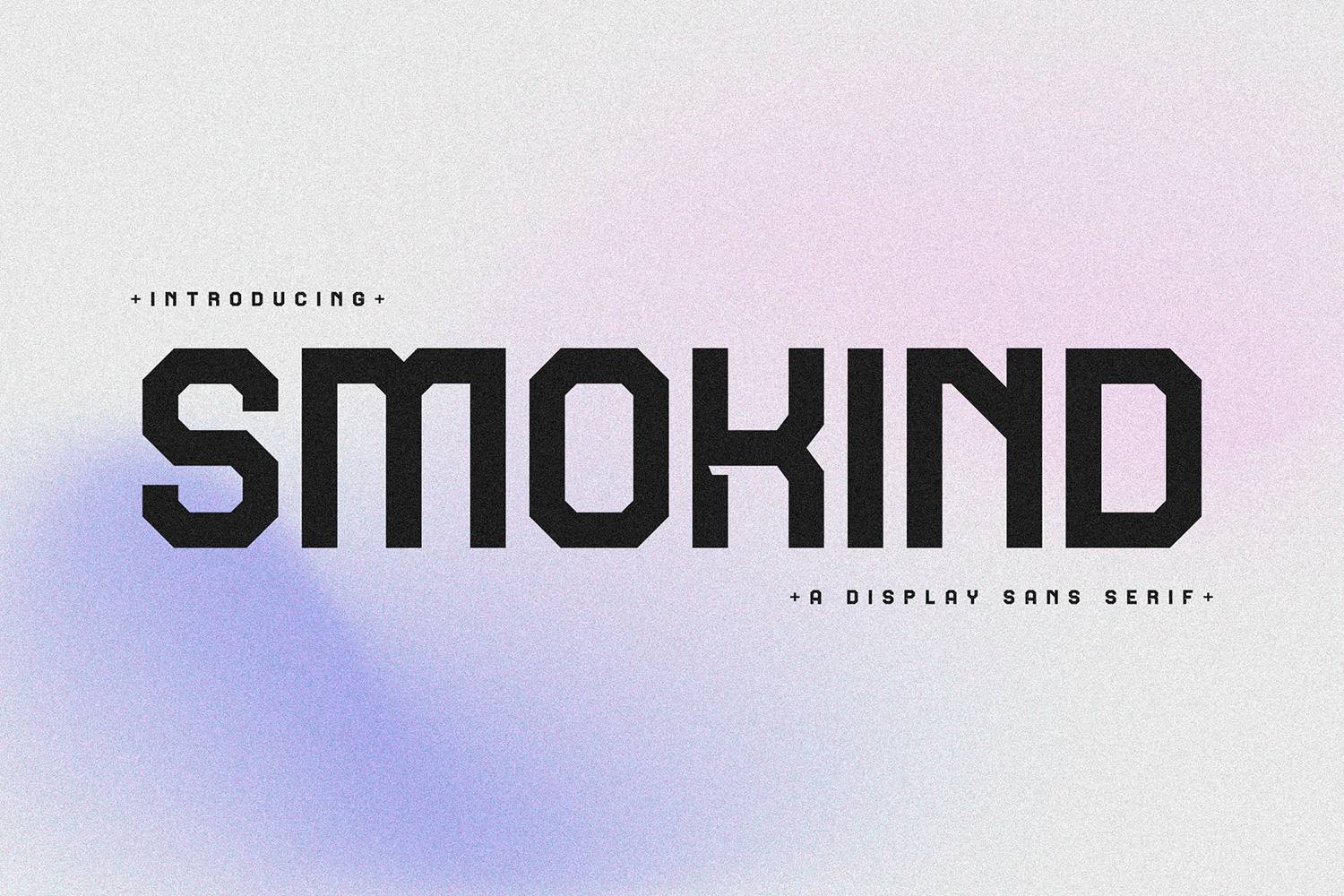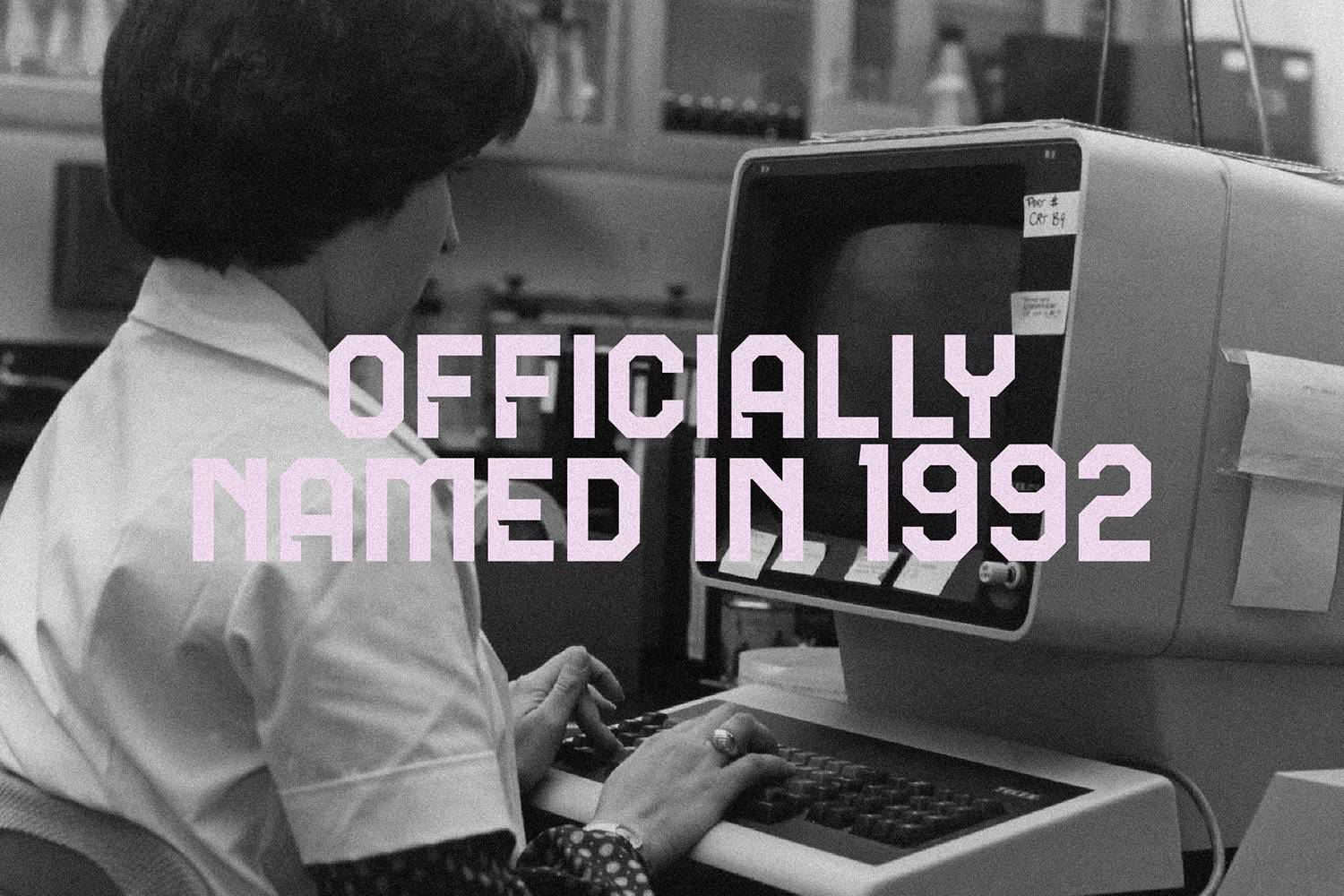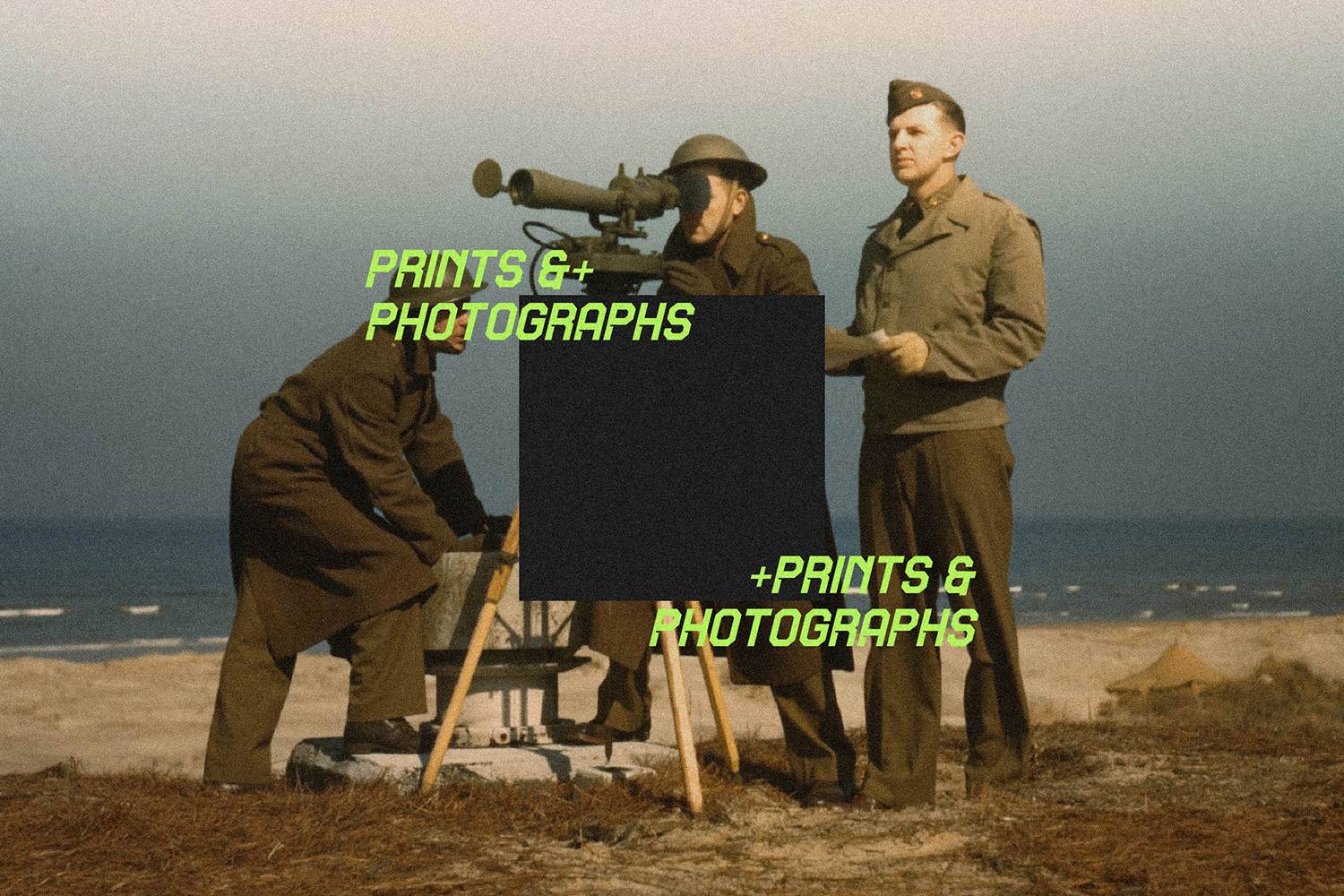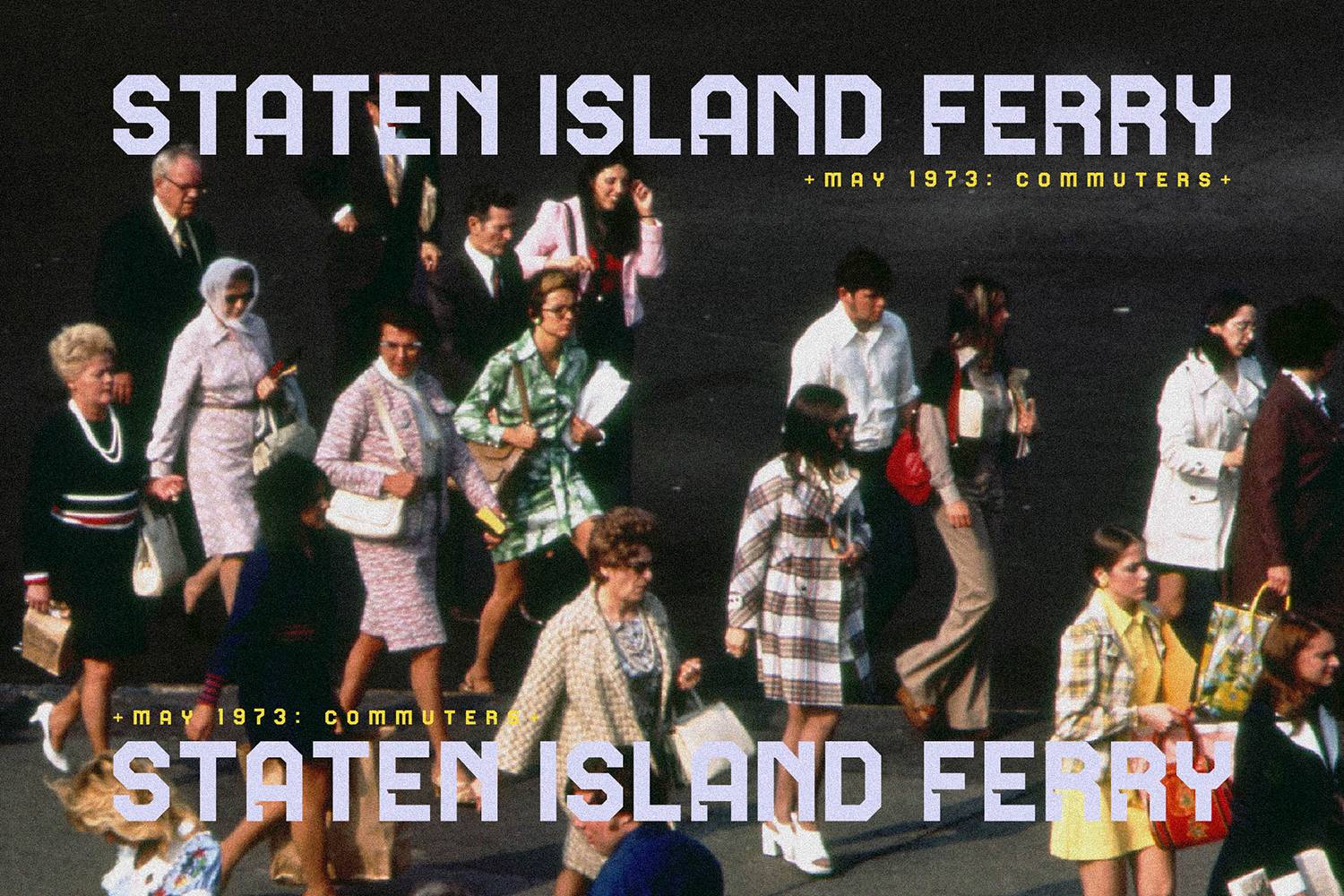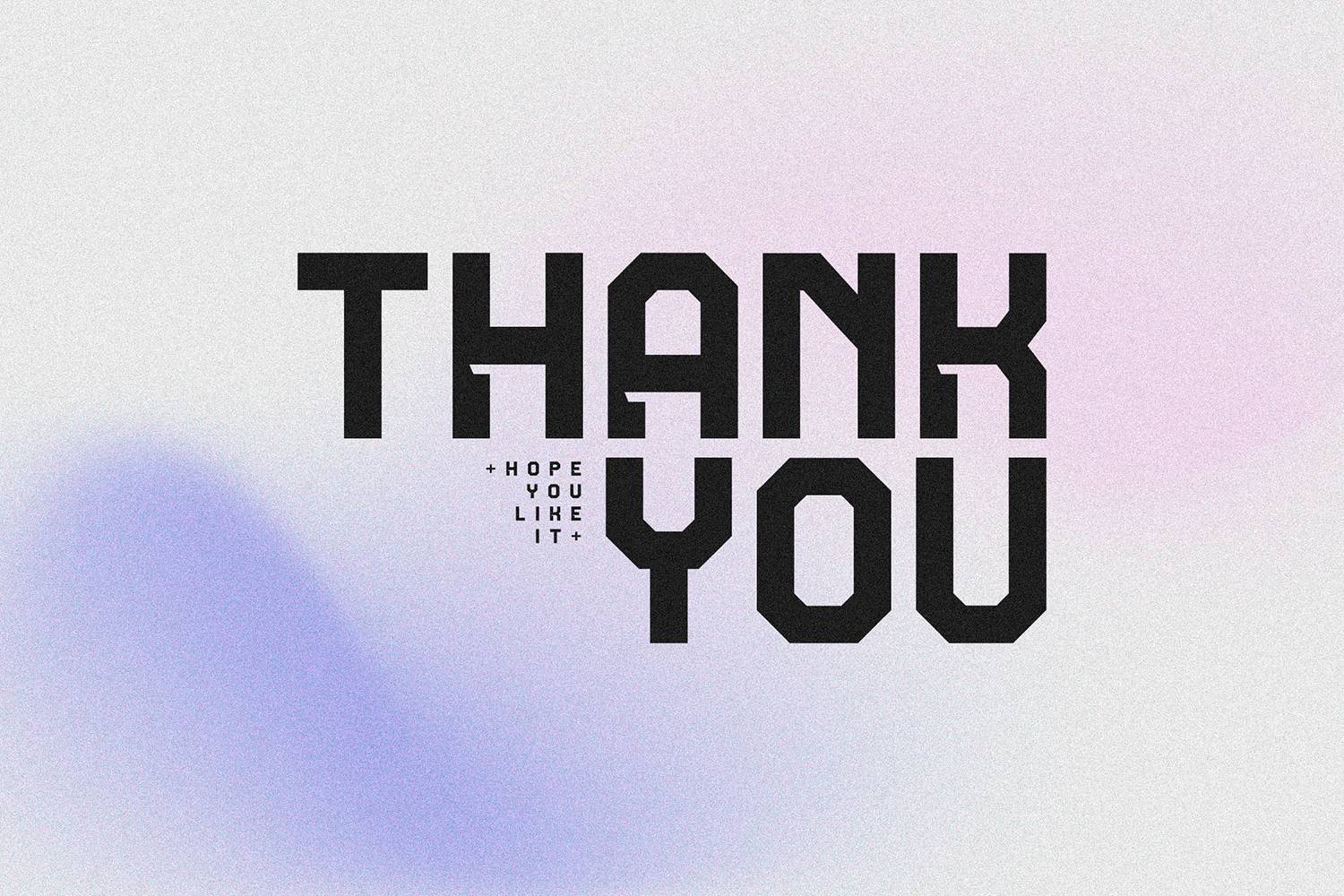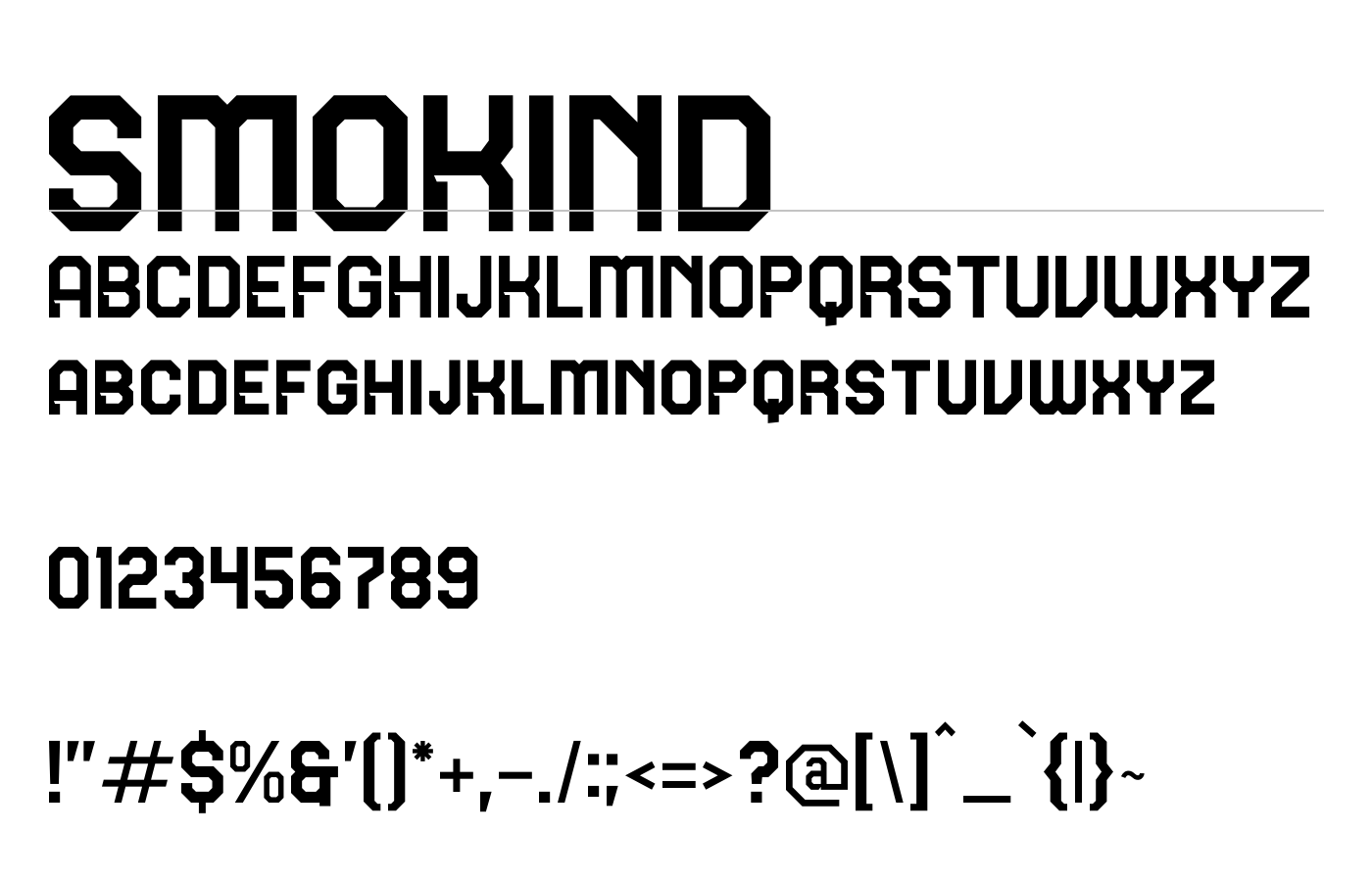
Smokind is a bold, geometric sans serif font with a strong, blocky presence and a slightly condensed width. Its sharp angles and uniform stroke weight give it a modern, industrial feel, making it ideal for headlines, logos, and designs that need a sturdy, confident look. This font works especially well in branding and posters where a futuristic or technical vibe is desired.
Smokind Font
About Smokind Font